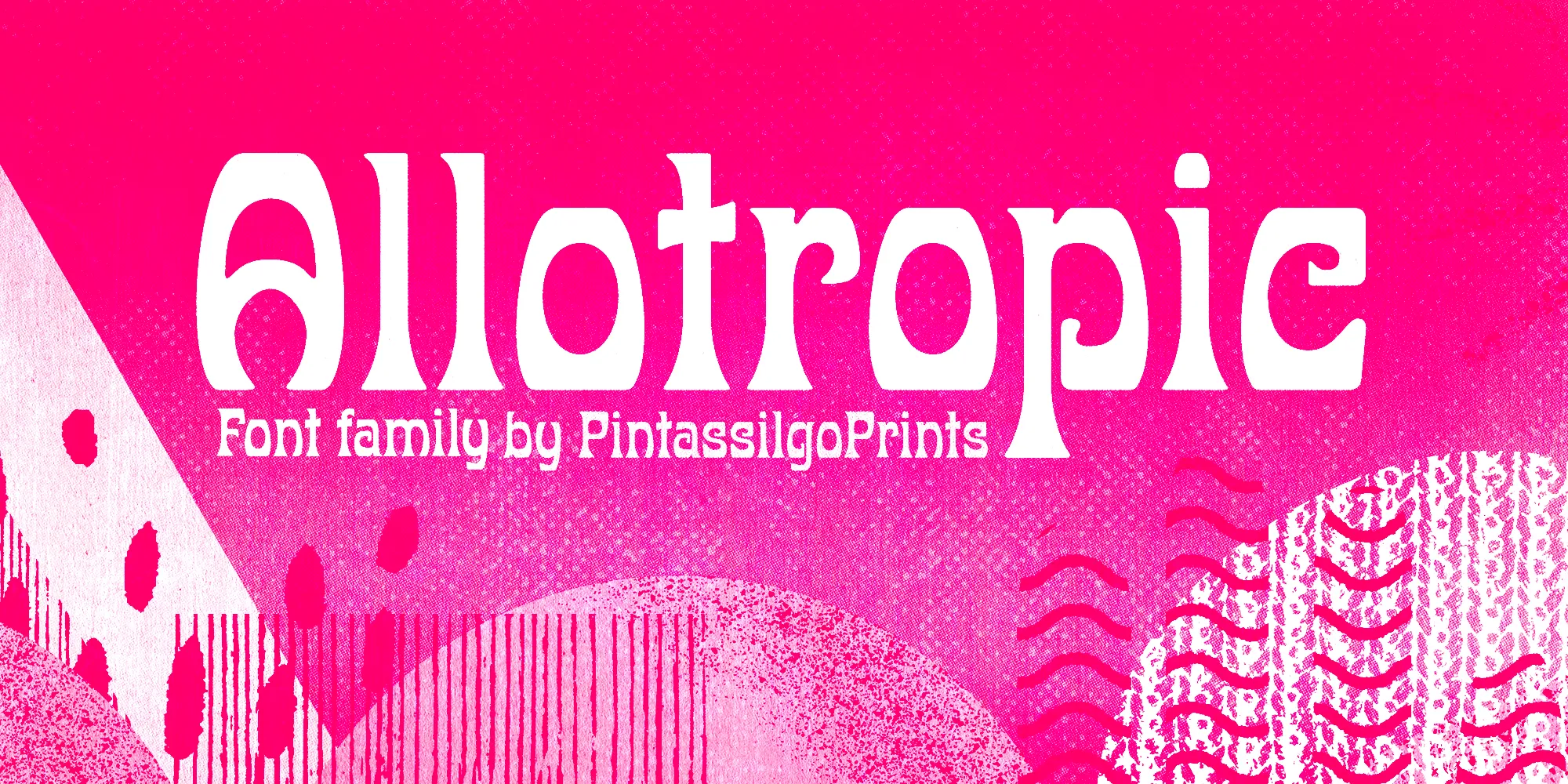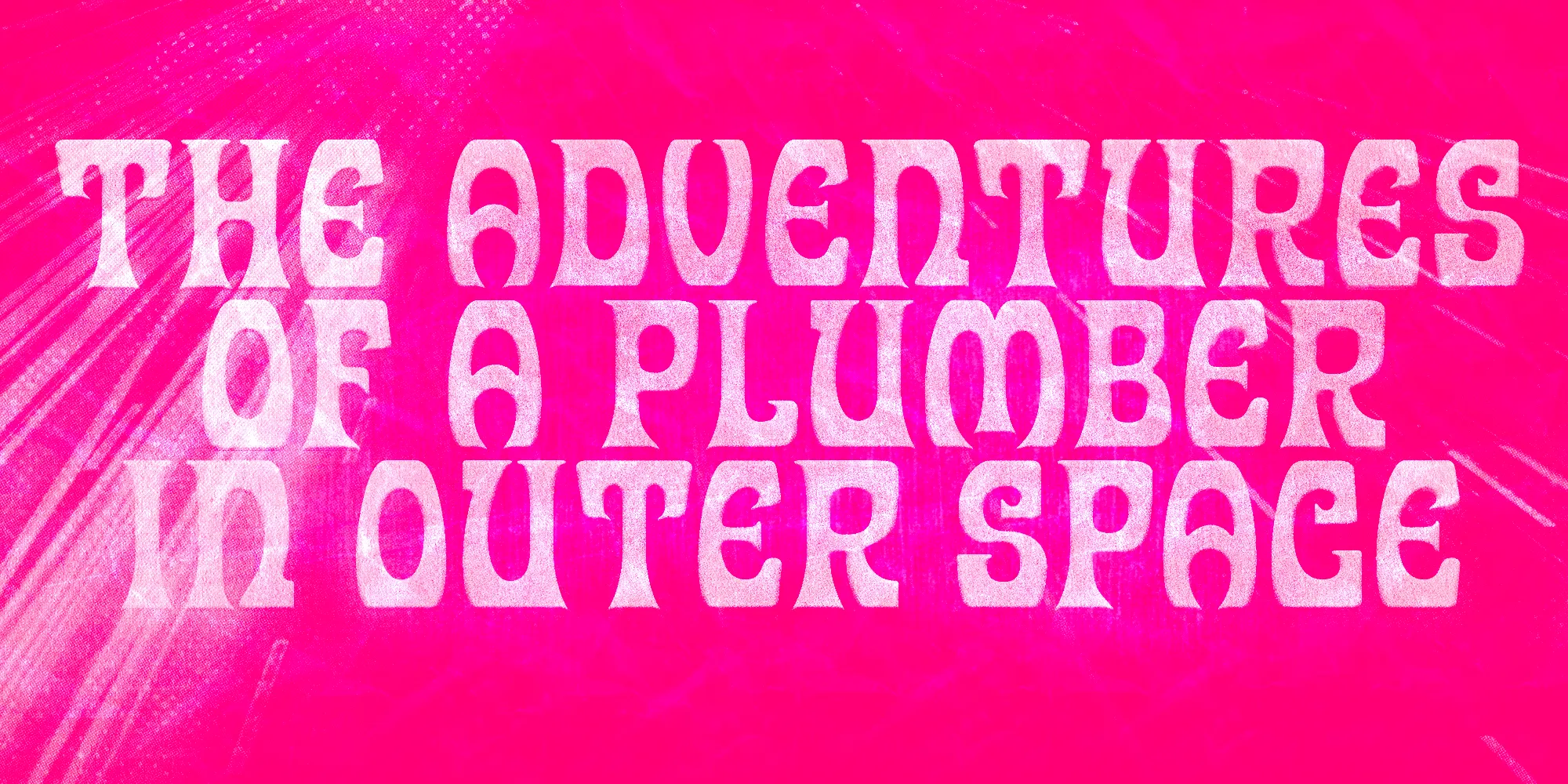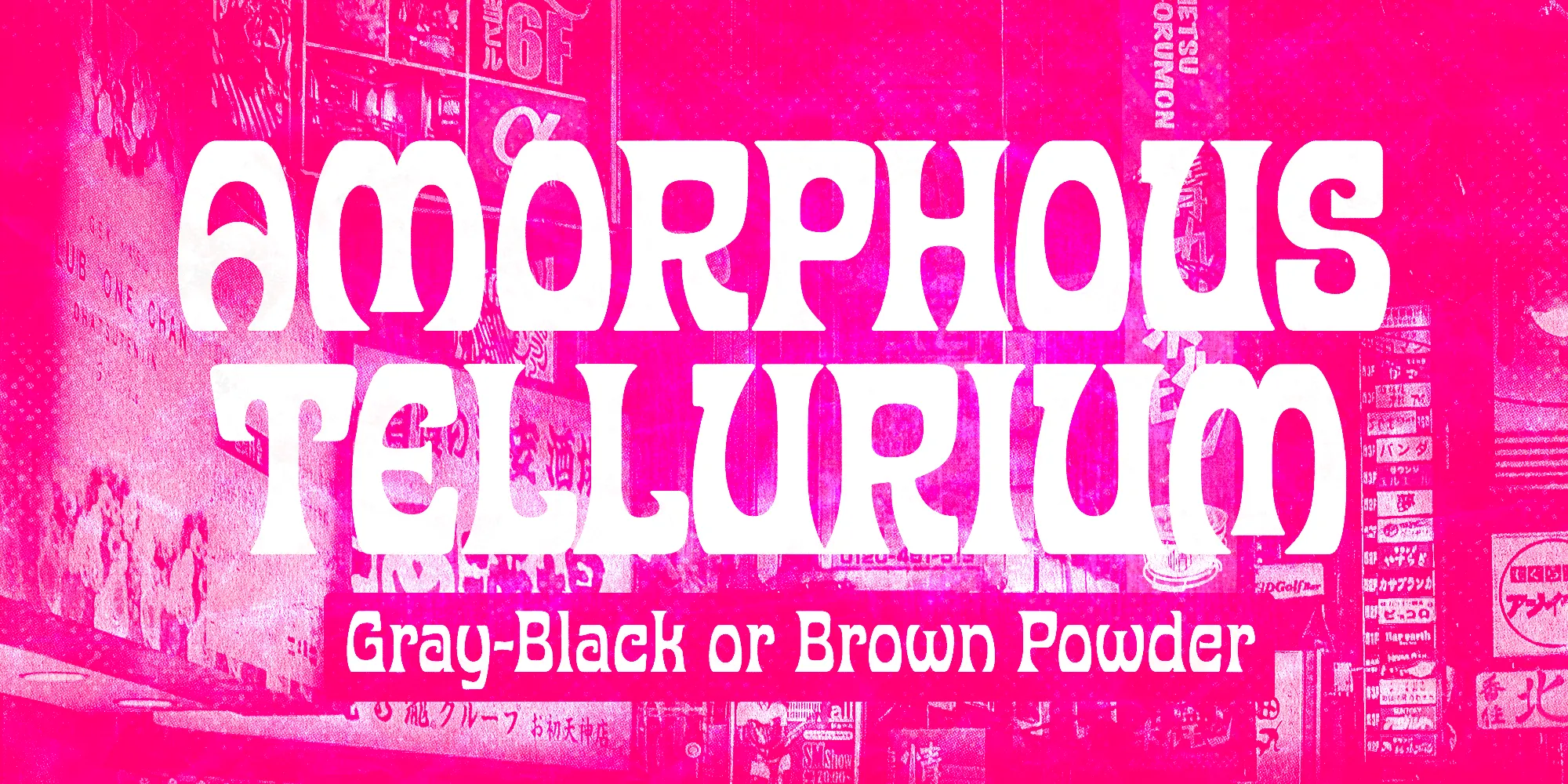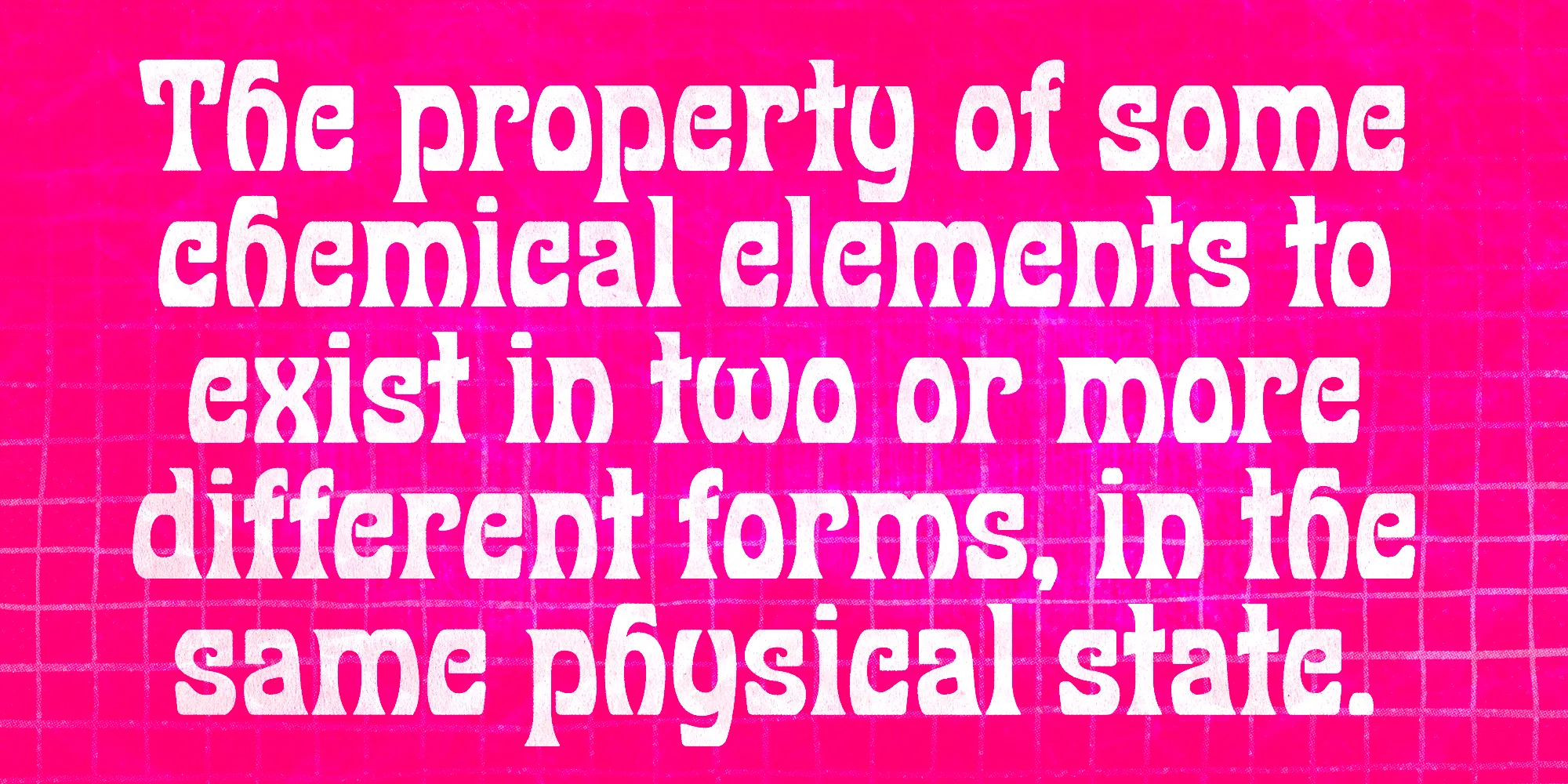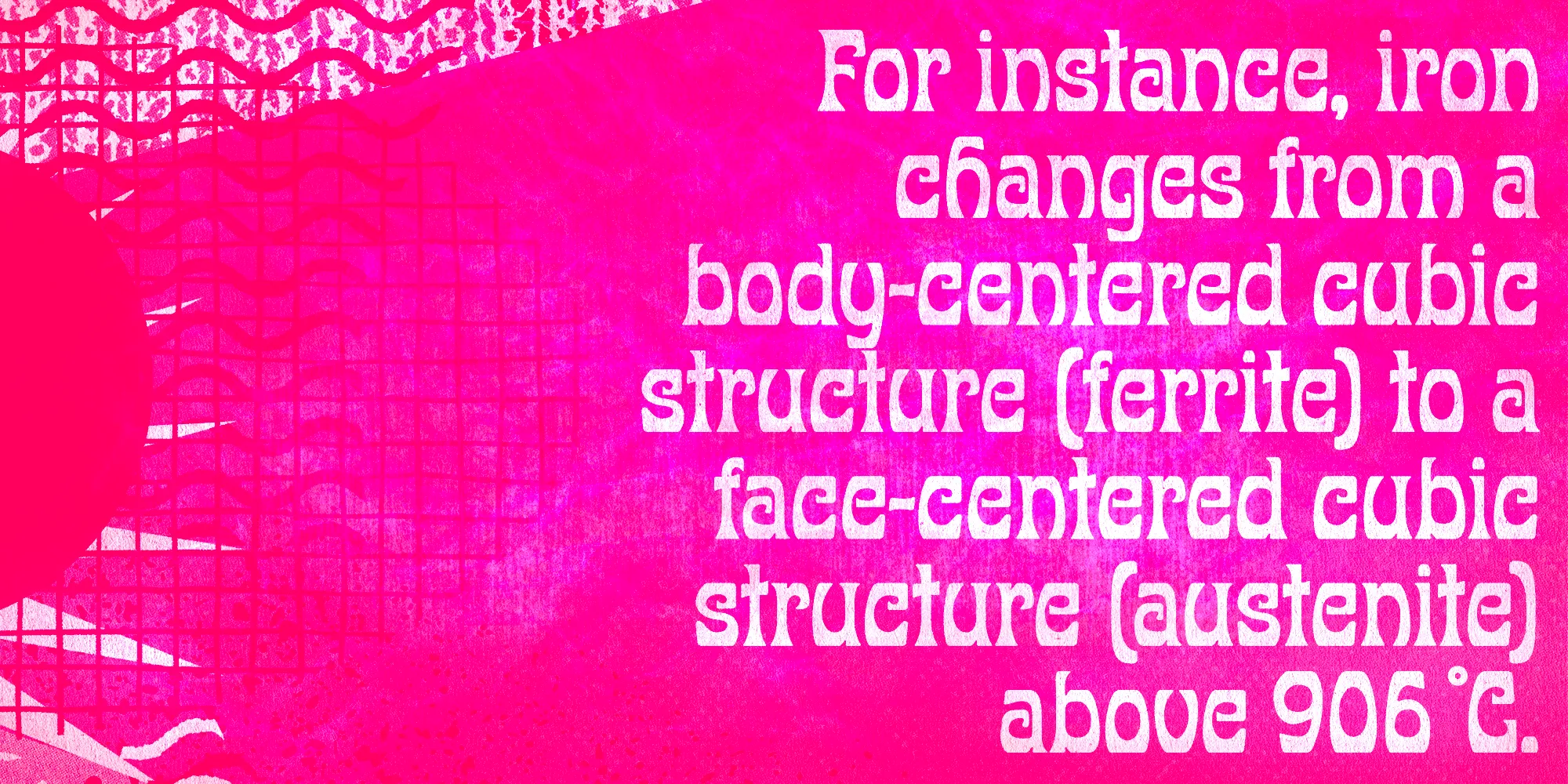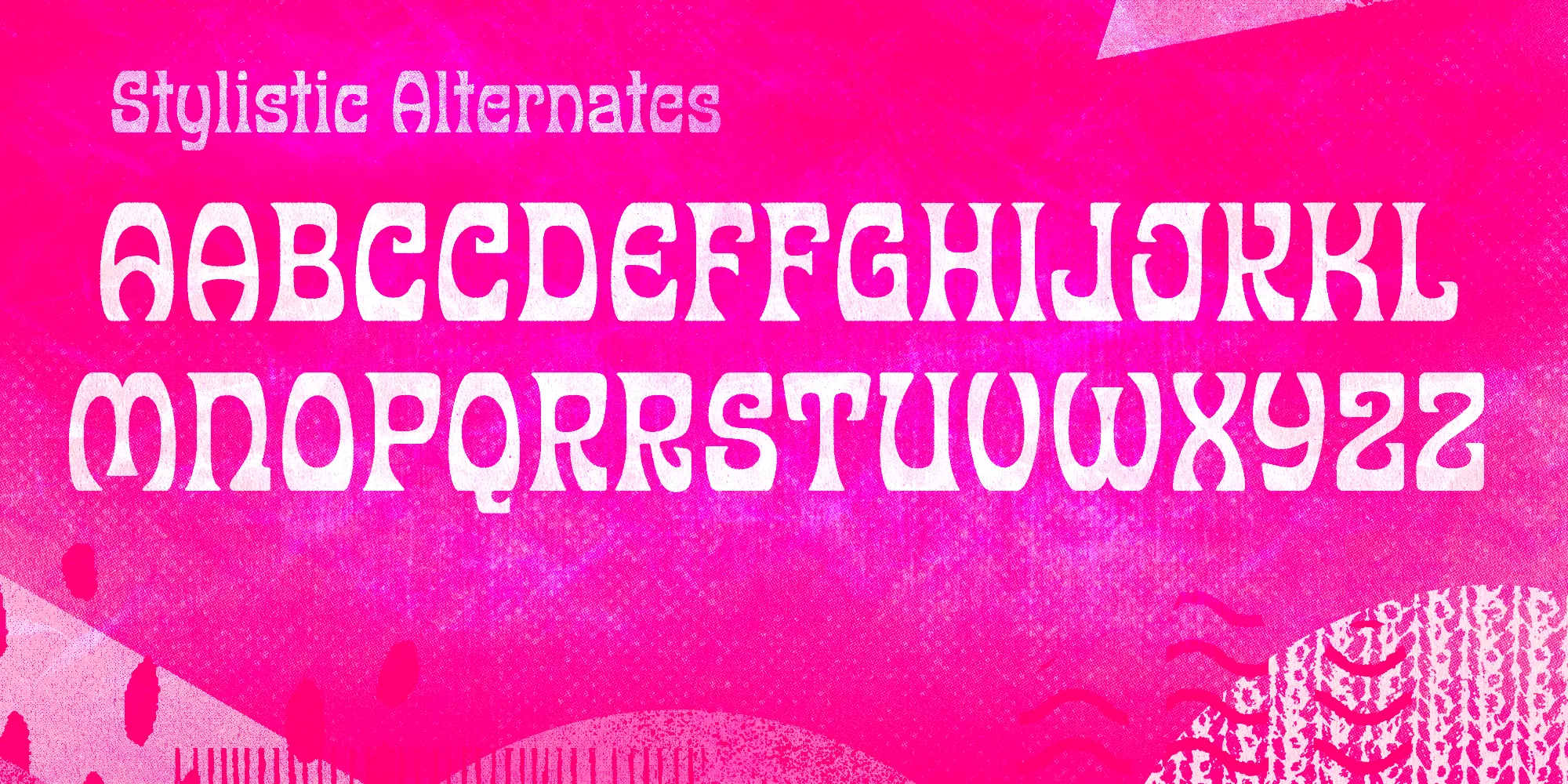
Allotropic Font Family
Allotropic
Allotropic is a decorative display face with remarkable Art Nouveau flair. It loosely draws inspiration from a 1914 untitled alphabet from J.M. Bergling’s “Modern Alphabet” and its interpretation by Photo-Lettering from the sixties. It’s a decidedly fab choice not only for vintage and retro designs, but also for creatively contemporary uses in print and on screen. Use it on book covers, packaging, branding, editorial, web, advertising, and apparel! Give Allotropic a go, let the inspiration flow!
• Fractions
• Ordinal Numerals
• Ornaments
• Superscript